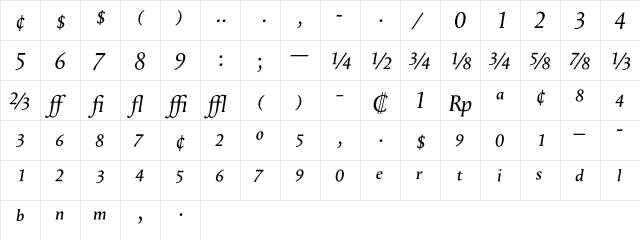
ApollineExp Italic
Design Context for ApollineExp Typeface
ApollineExp takes a measured approach to typography — its balanced proportions and neutral character make it a reliable workhorse for both digital and print work. The slanted form adds forward momentum and visual energy.
Pro Tip: Try ApollineExp for annotation and caption copy alongside an upright companion — the contrast in angle creates a dynamic but ordered typographic system.